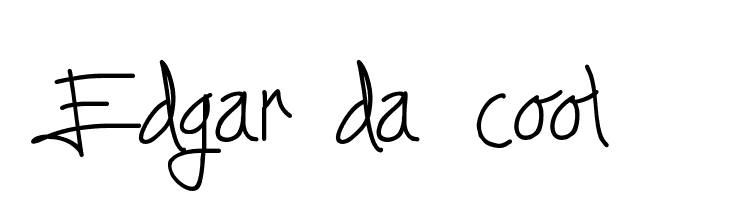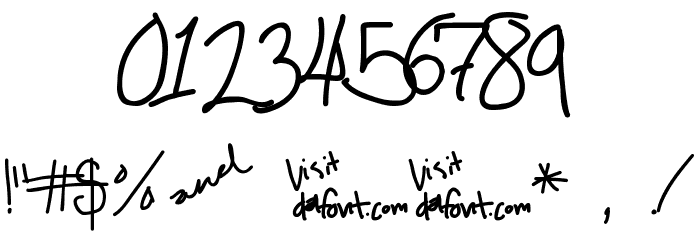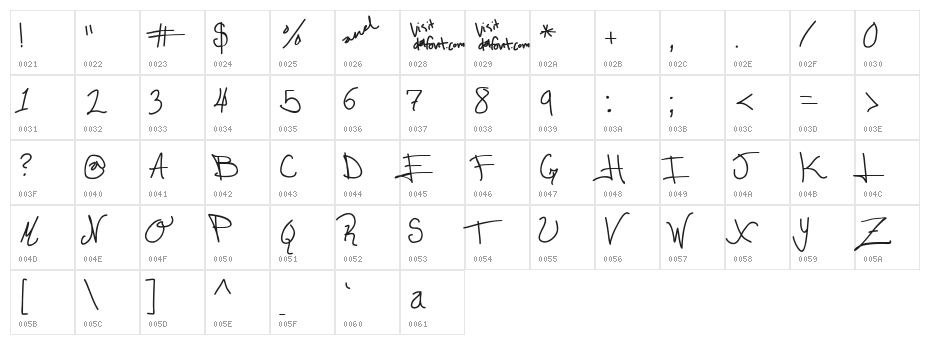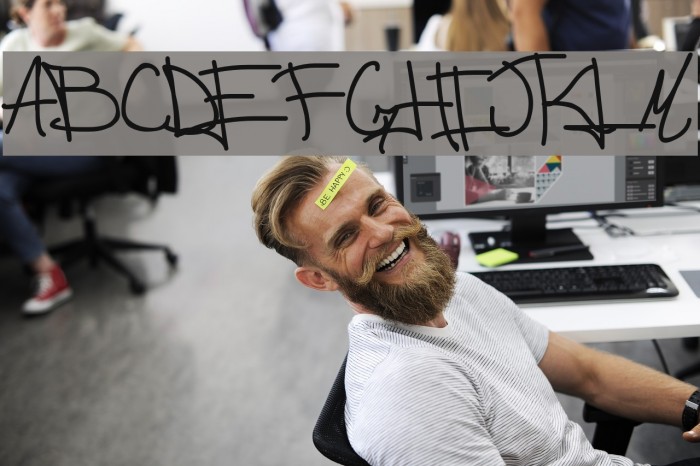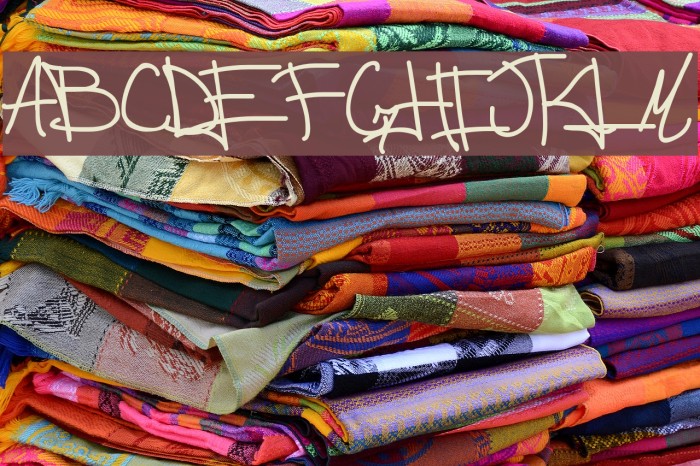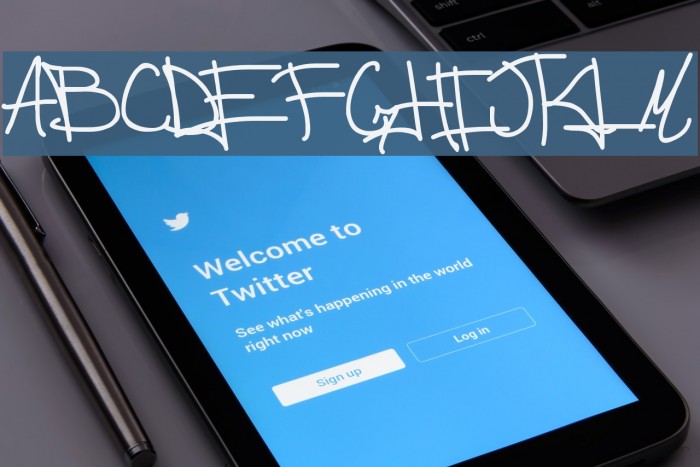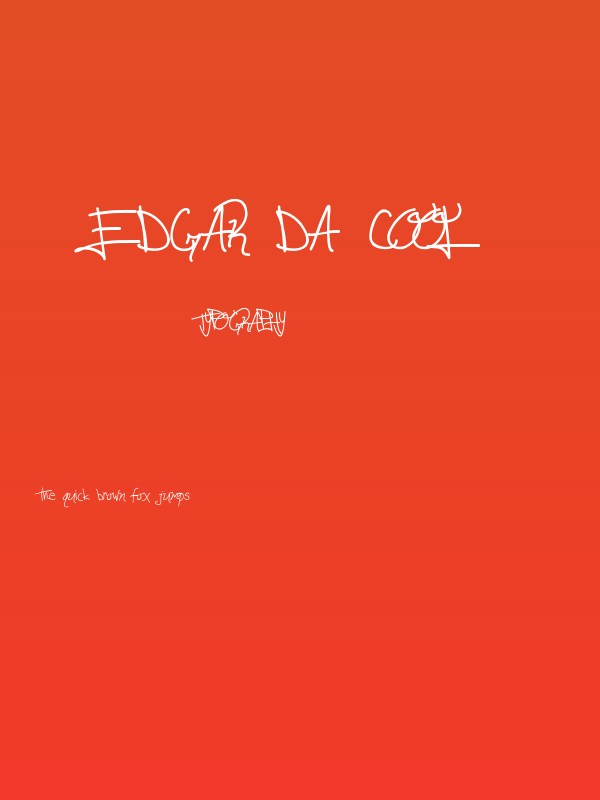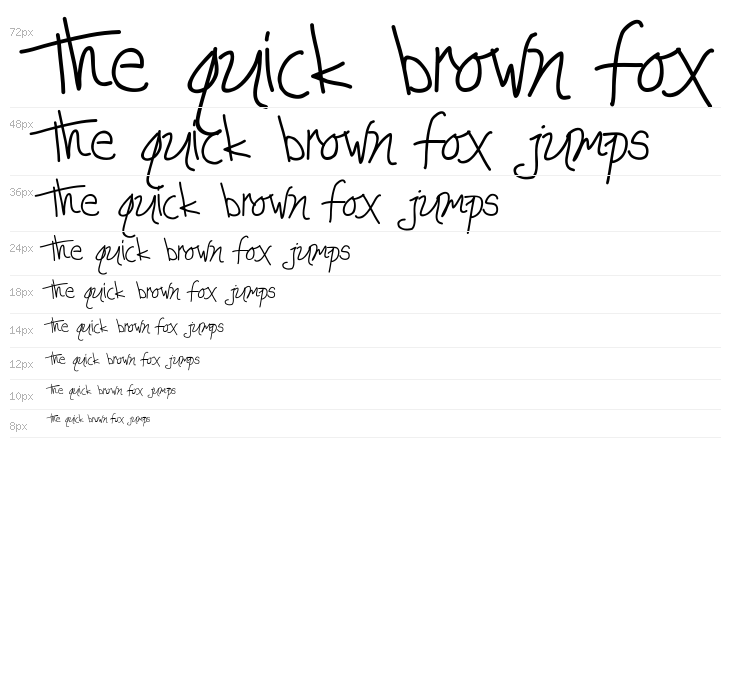
Edgar da cool Font
Edgar da cool Description
This font exhibits a bold, handwritten style with an energetic and dynamic appearance. The letters are crafted with a casual, free-flowing script that conveys a sense of spontaneity and creativity. The uppercase and lowercase characters are consistent in their informal style, with strokes that vary in thickness, adding to the font's lively character. The numerals and special characters maintain the same playful and expressive quality, making the font versatile for various creative applications. Its unique style is ideal for projects that require a personal touch or an artistic flair.
| Proposed Projects | Ideal for artistic projects, personal branding, creative posters, and informal invitations. |